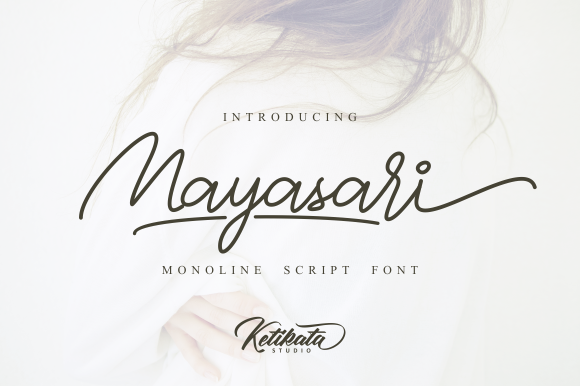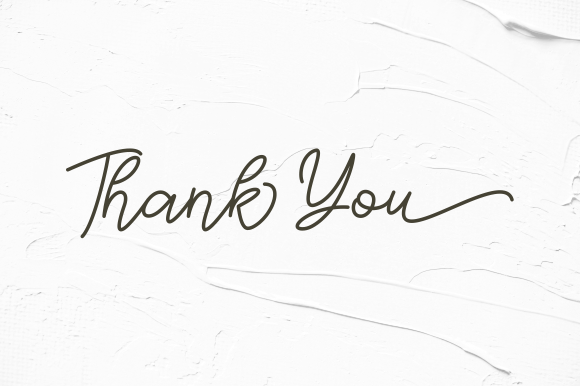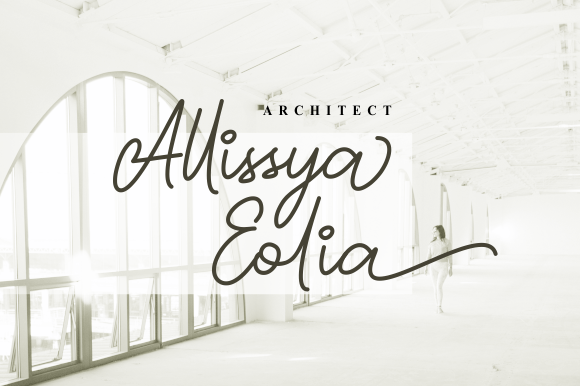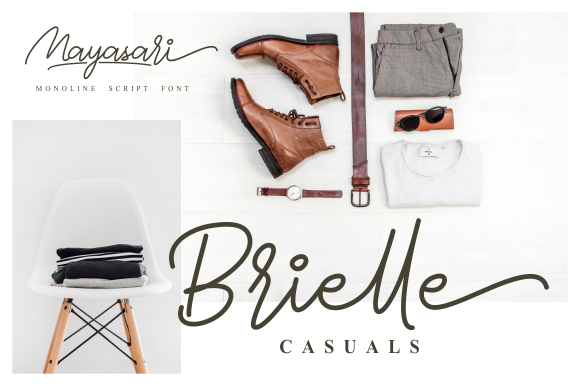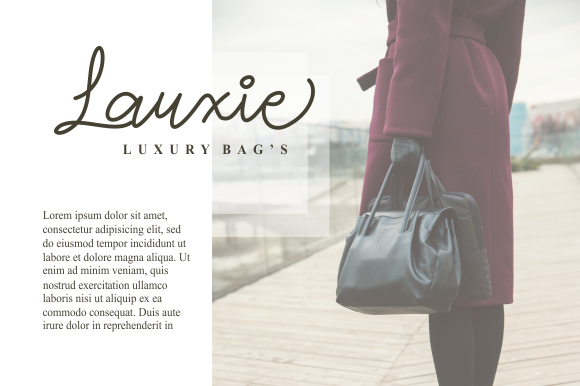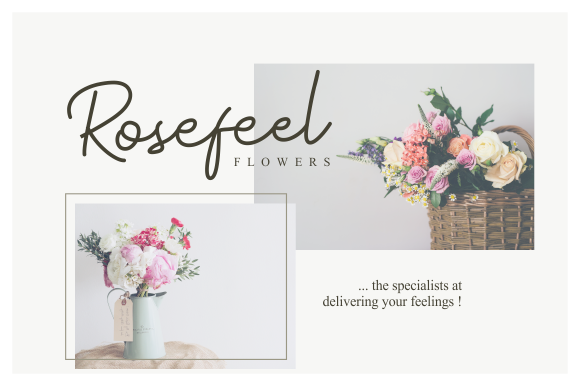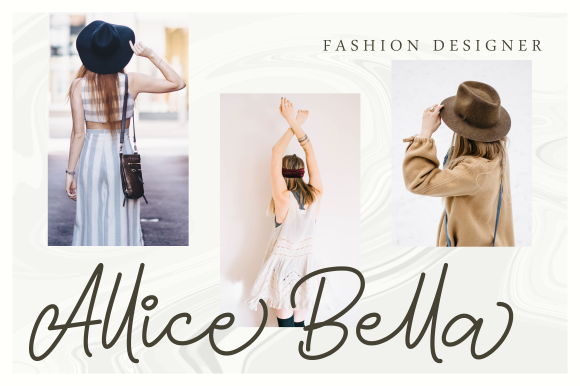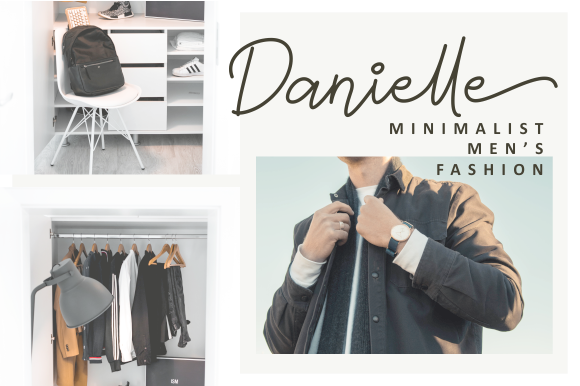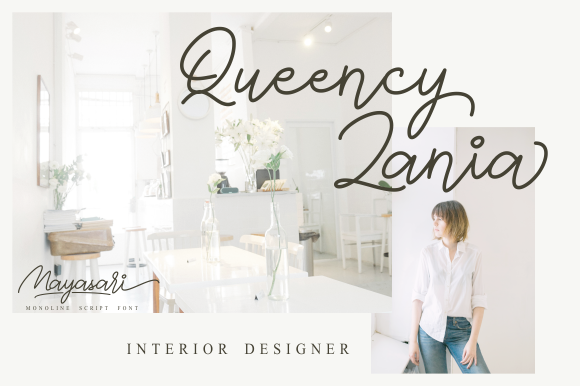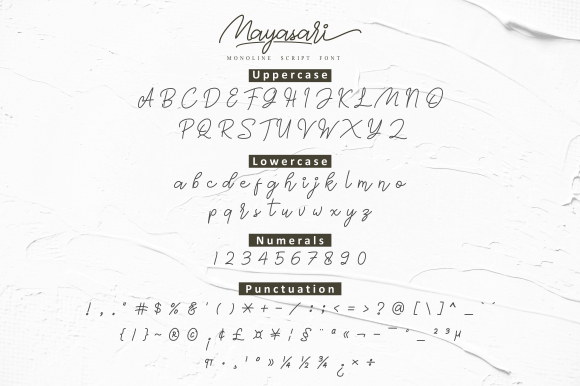
Mayasari Font
About Mayasari Font
Mayasari is a light and lovely handwritten font with a lot of authenticity. Fall in love with its effortless beauty.